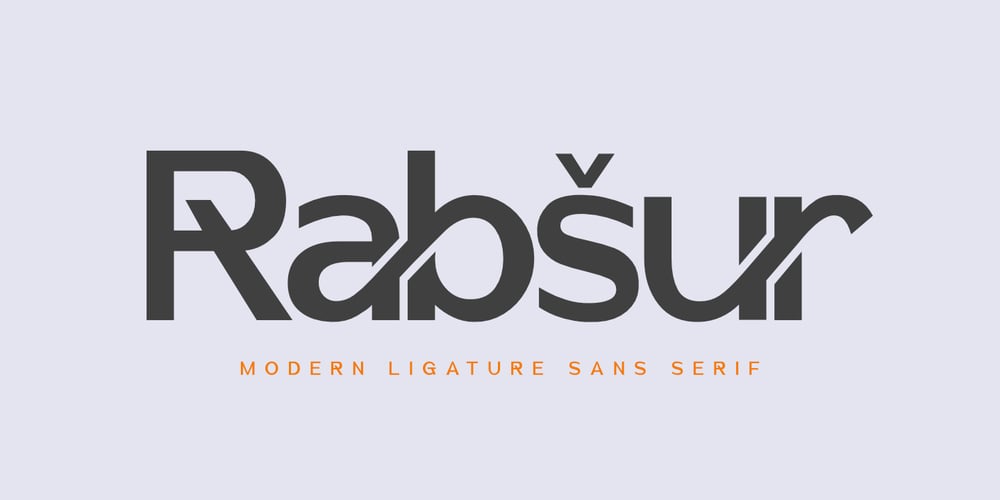
Rabsur Font Family was designed by Saiful Anwar and published by Sealoung. Rabsur contains 1 styles and family package options. Introducing Rabsur, a bold and captivating font designed to elevate your brand’s presence. Perfect for crafting modern, attention-grabbing logos, Rabsur combines clean lines with dynamic aesthetics to ensure your brand stands out.Rabsur Font Highlights: Bold Impact: Designed for strong, memorable logos and branding that leave a lasting impression. Sophisticated Style: Blending contemporary elegance with a touch of artistic flair, it adds a refined and polished look to your designs. Versatile Application: Ideal for logos, posters, headlines, and a wide range of graphic design projects. Unique Ligatures: Featuring a variety of distinctive ligatures, Rabsur brings an extra level of creativity and character to your typography, making your text truly one-of-a-kind. Sleek Aesthetics: Minimalist yet impactful, Rabsur ensures your designs capture attention with a modern, stylish edge. Elevate your brand with Rabsur, a font that exudes sophistication and style. Whether you’re designing logos, posters, or any graphic project, Rabsur adds a bold and elegant touch to your work. Make a statement with Rabsur’s sleek, contemporary design.